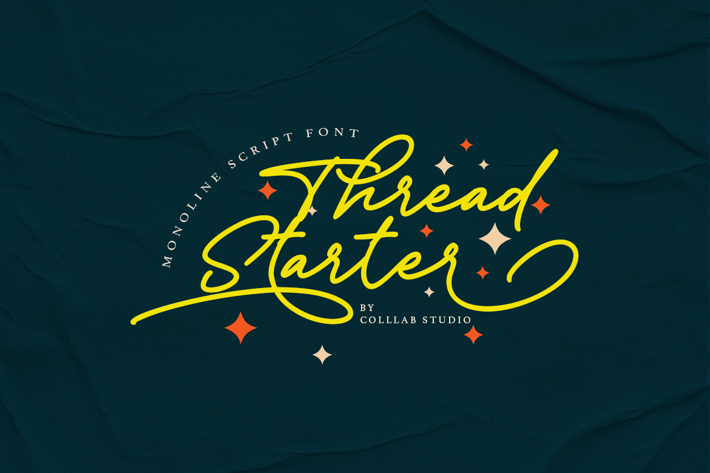
Tread Starter - A Casual Monoline Font
Tread Starter is a casual monoline script font that is suitable for design projects; casual theme, logo, branding, poster, quotes, display, beautiful stationary art, eye-catching social media posts, and cute greeting cards, and any other designs.
Huge Ligatures
Some Alternates
Full uppercase and lowercase glyphs
Numbers, punctuations, and symbols